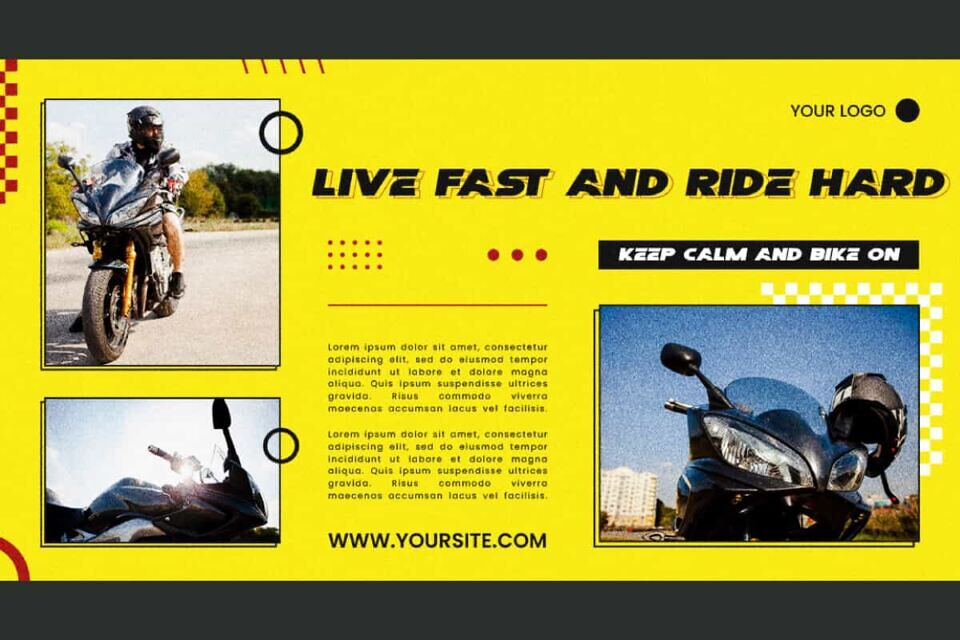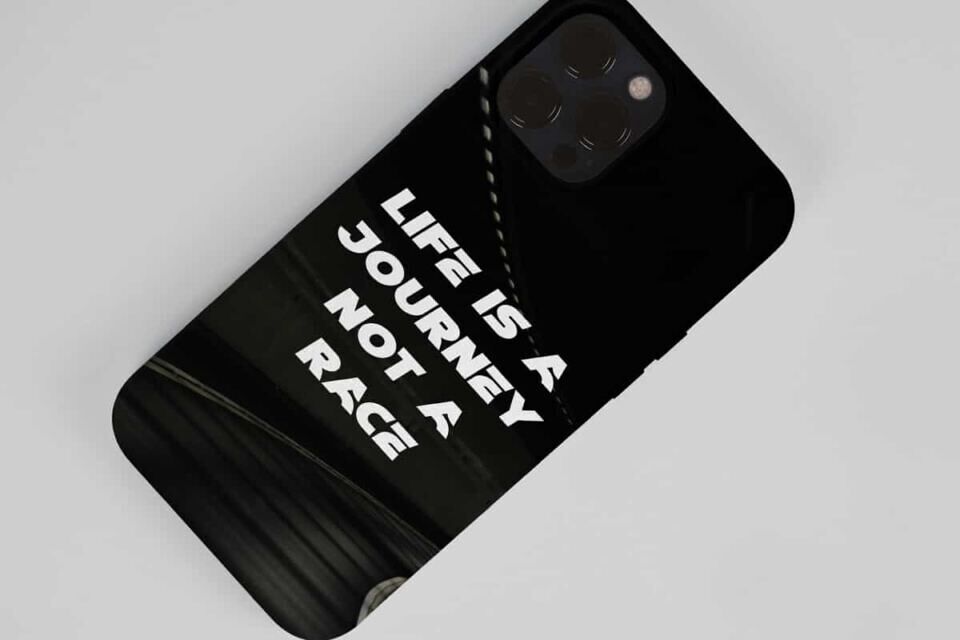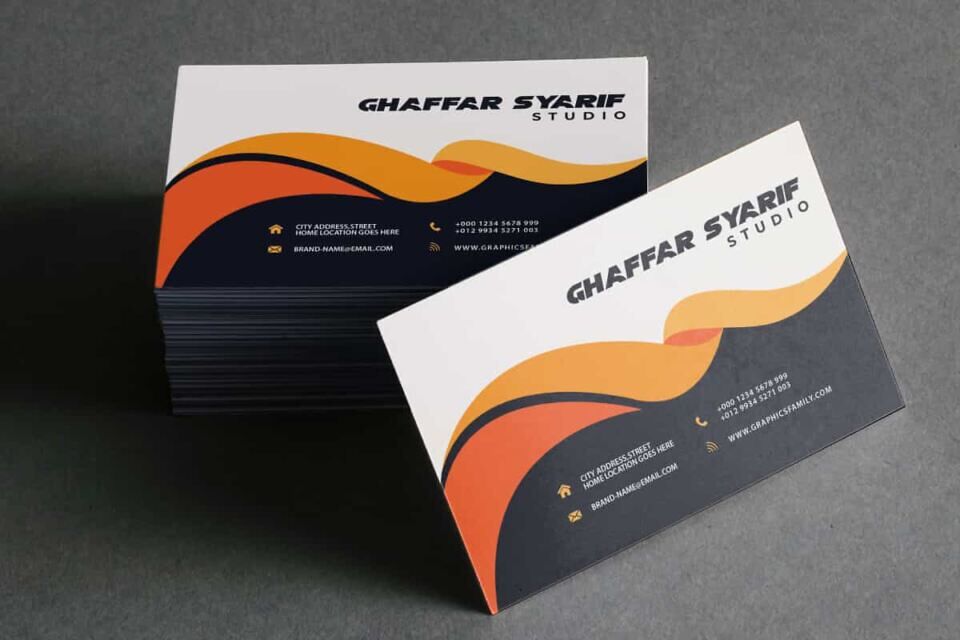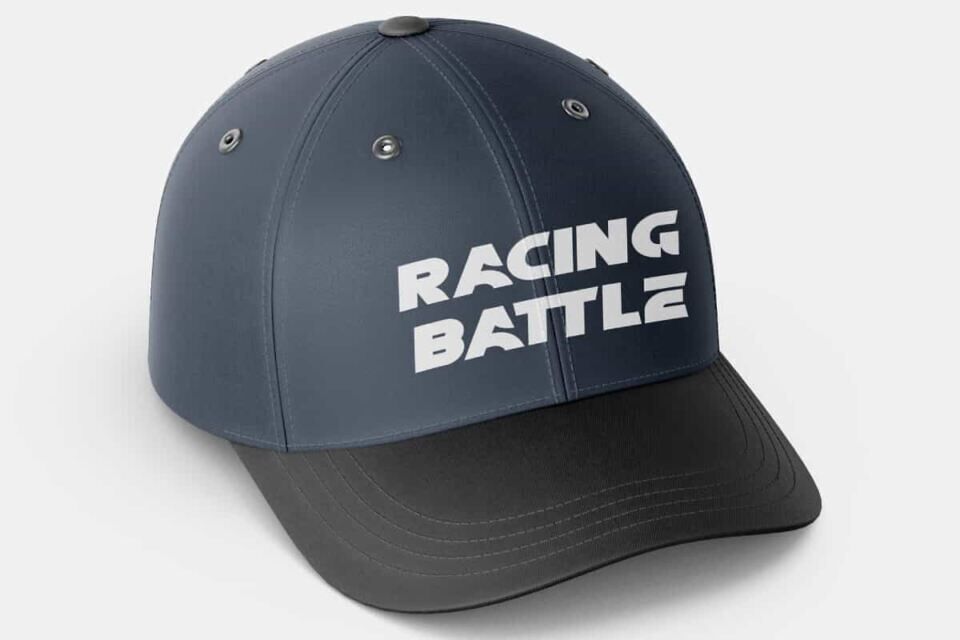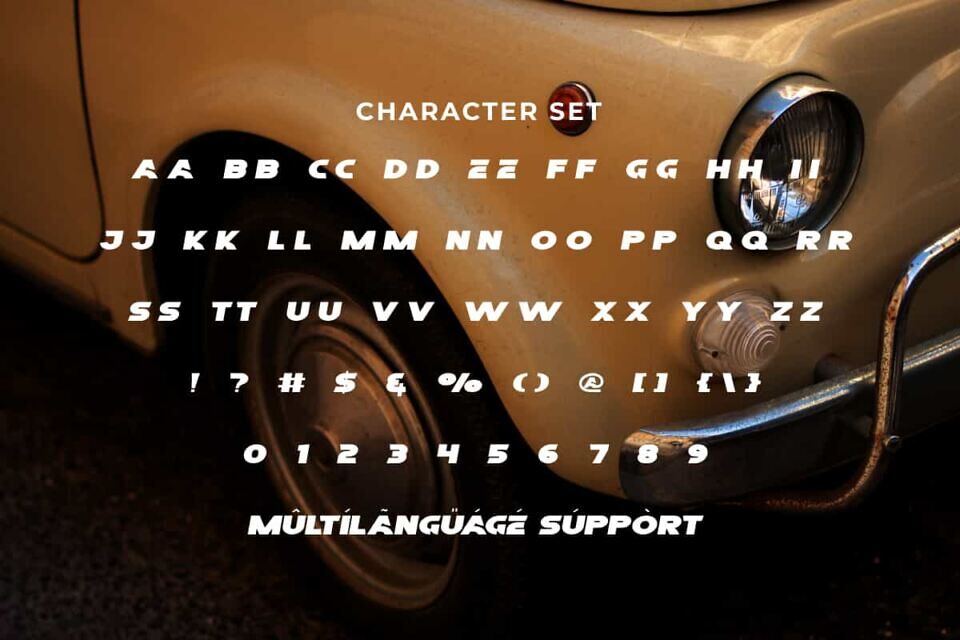
Racing Battle Font
Racing Battle Font is a bold and unique display font with racing style, created by RaisProject. This font has a unique letter shape so it stands out and easy to read.
It will be perfect for any designs, such as stationery, custom design, product packaging, quotes, poster, signage, brand image, advertisement, invitation, label, marketing material, website page, and more!
Racing Battle Font includes a full set of ALL CAPS for Uppercase and Lowercase Letters, Numerals, and large range of Punctuation. This bold font will be suitable for various industries, such as automotive, sports, fashion, game, barber shop, cafe, event or festival, photography, printing, publishing, etc.